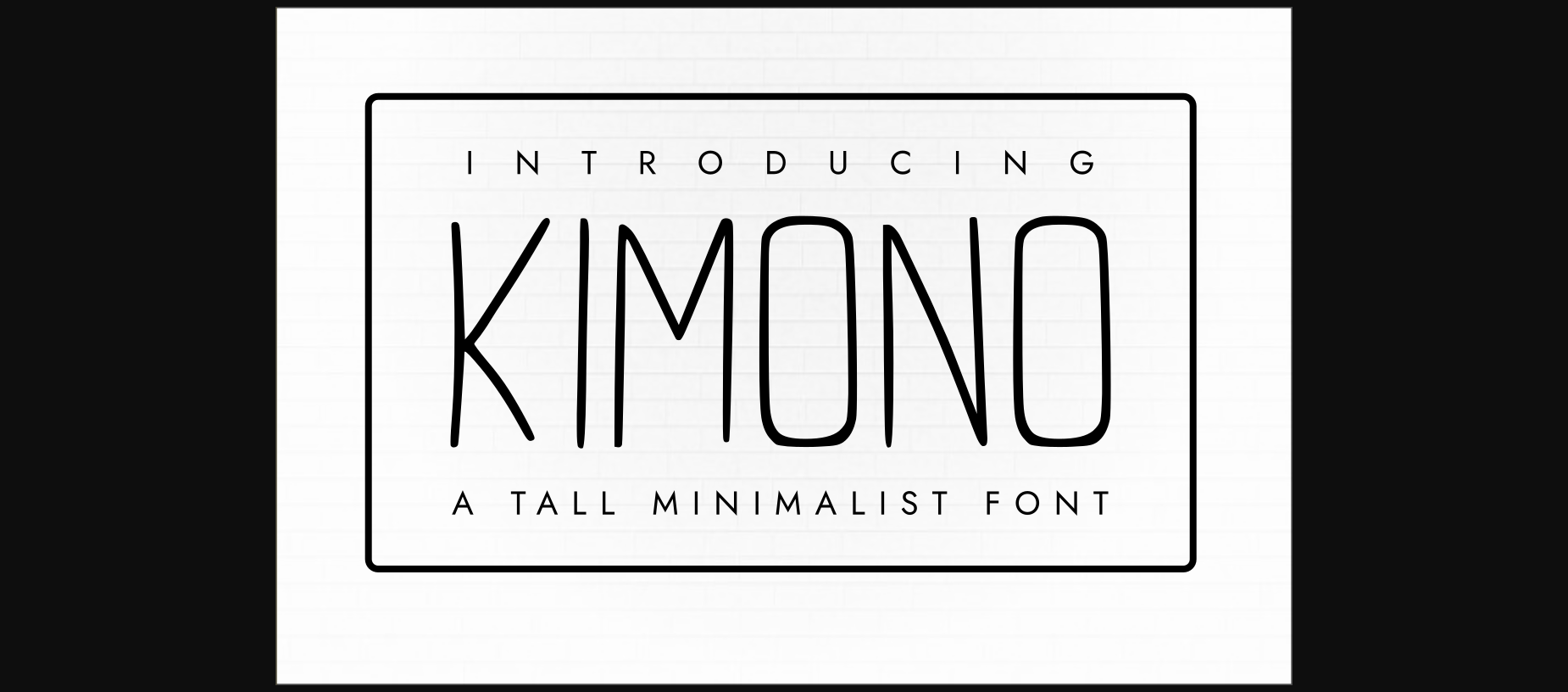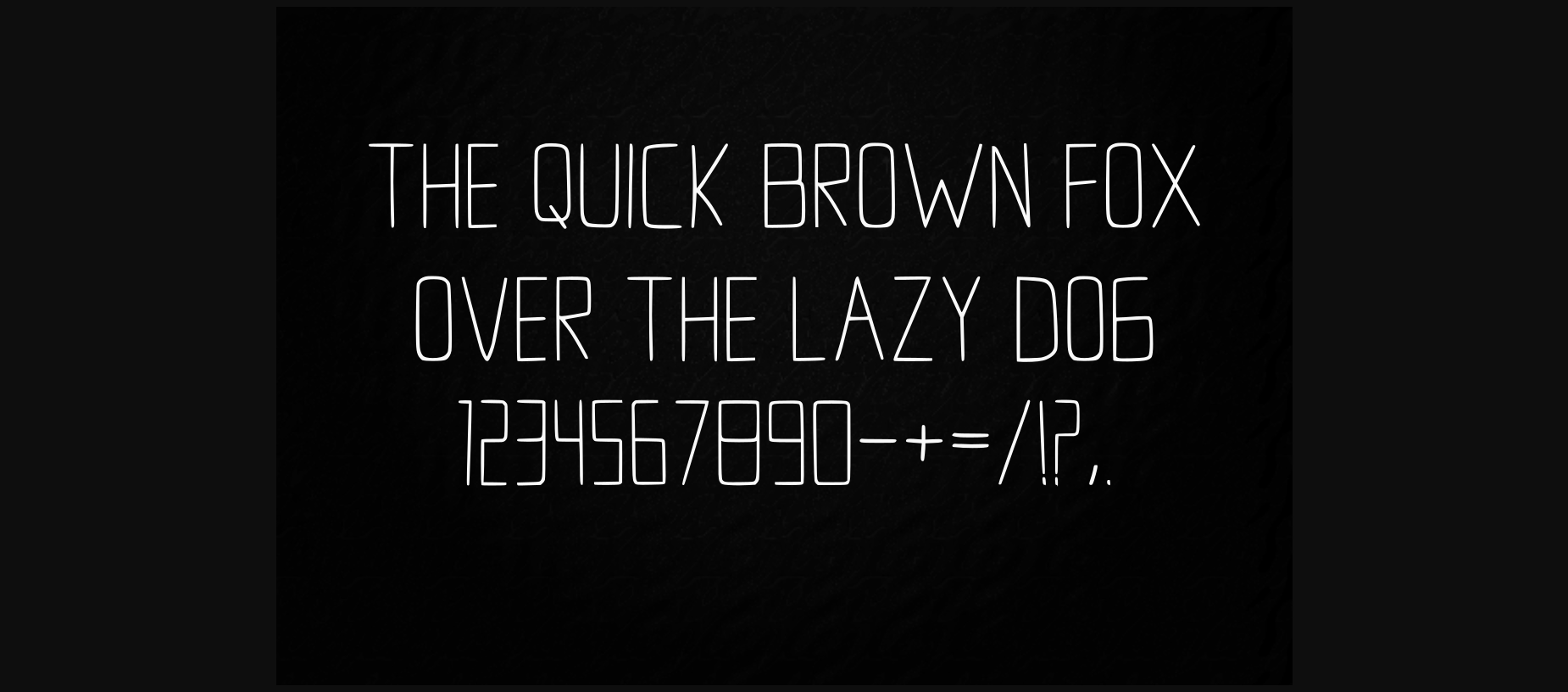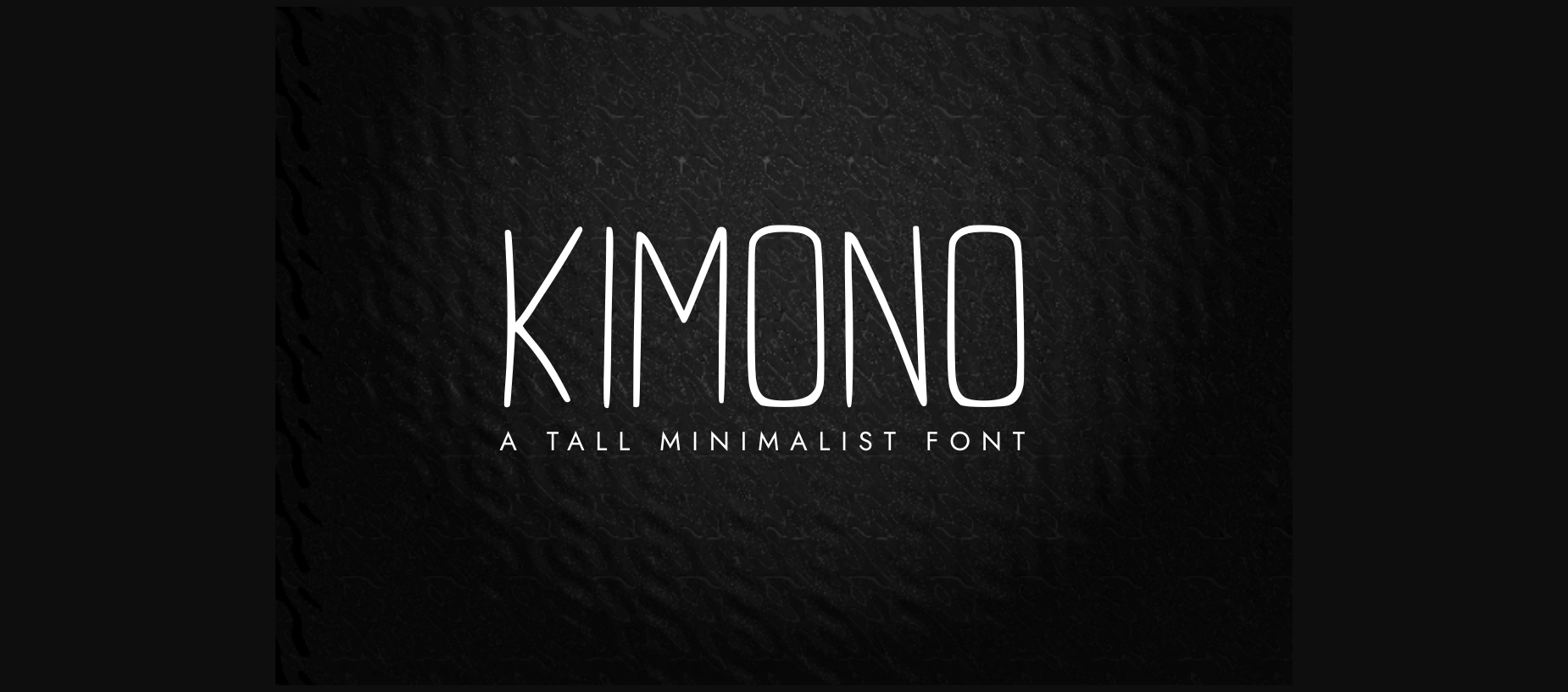
Kimono Font
About Kimono Font
Kimono is a minimalistic tall sans serif font in all caps. The Kimono font can be used for logos, branding, business cards or header elements that require a handwritten touch, quote graphics for social media, digital design, presentations or creating greeting cards and for any other project you have.